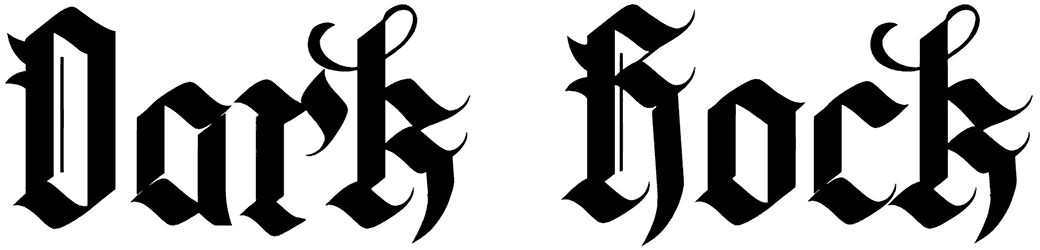
Dark Rock Font
The gothic font, Dark Rock, has a raw, menacing appearance. This blackletter font is one of those helpful instruments with unusual characters, able to bring attention to any project and possibly frighten its target audience.